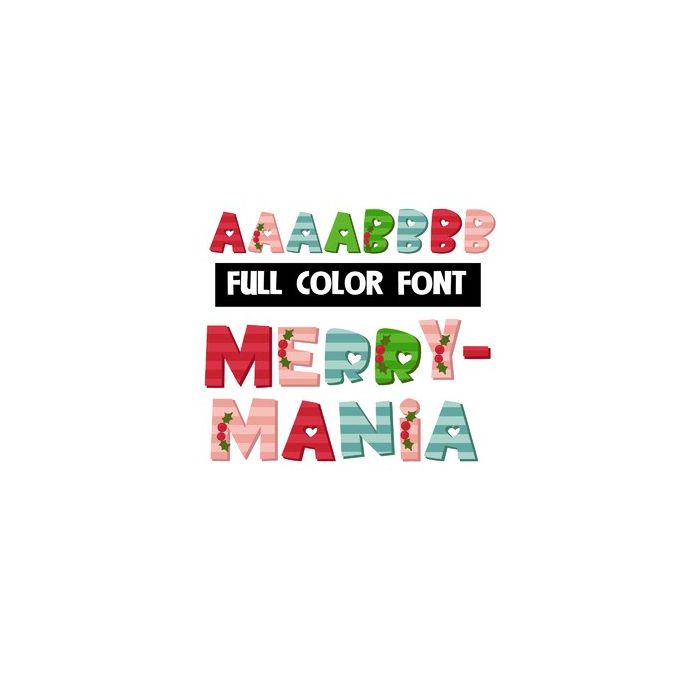
This fun and whimsical full-color font features striped lettering in a Christmas color palette and several sprigs of holly. There is a an alt version w/ secondary colors available through your system's or Silhouette's glyph map.